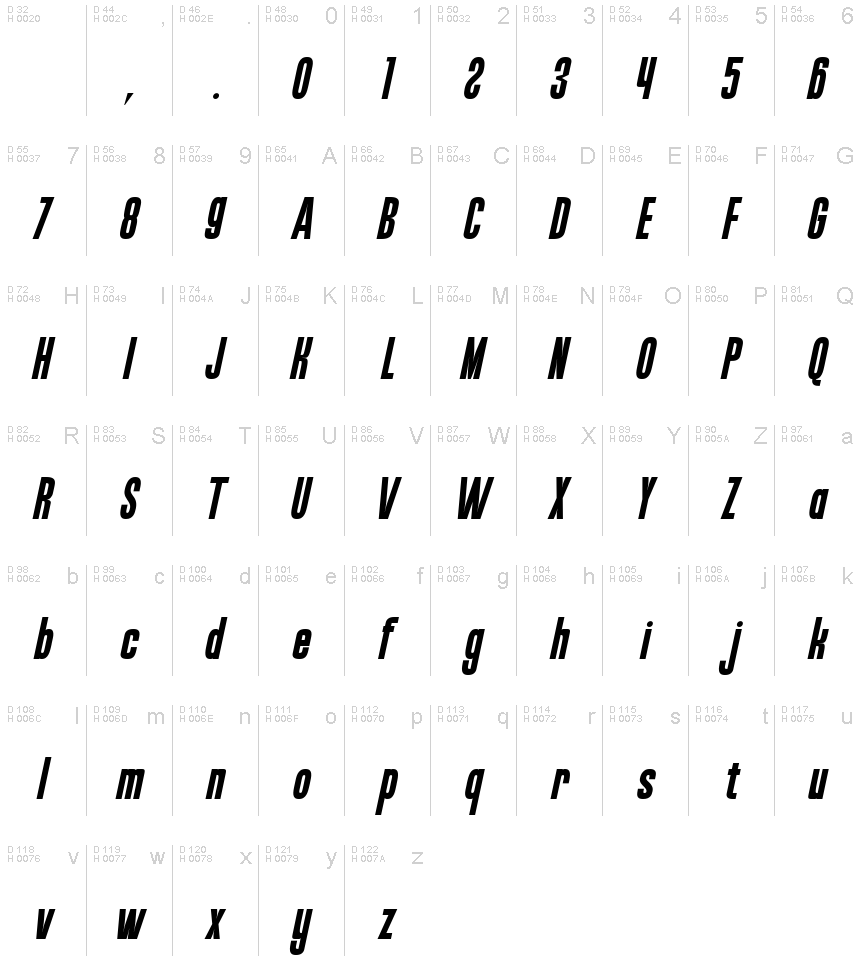
Corqen Italic
Corqen Italic font by Muksal Creative is a condensed geometric interpretation of modern design. This sleek physical appearance gives elegance and style to projects. Each letter has a unique flair with its italic and sleight curves, providing dynamic typographic functionality to all your headings and text content.